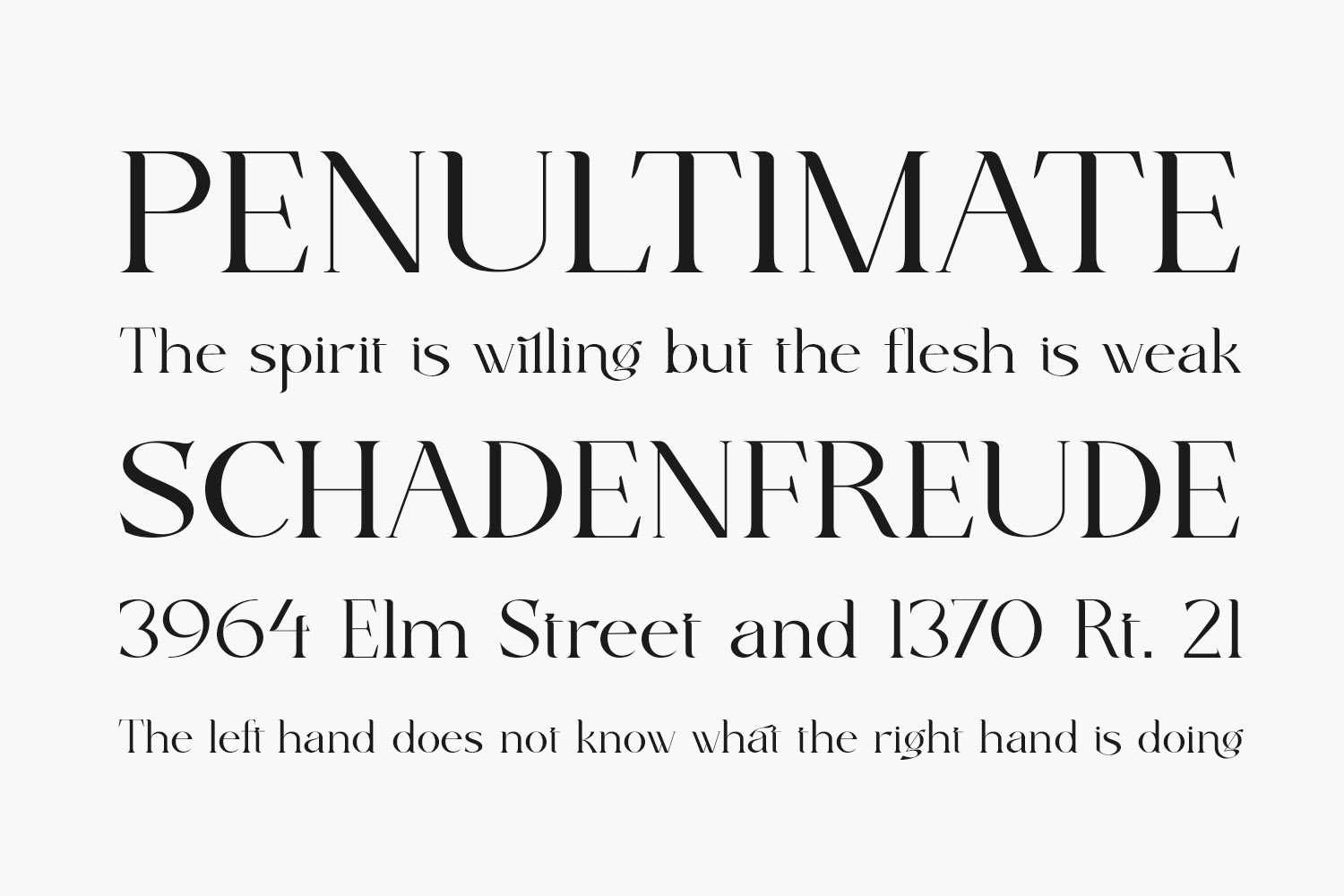
Arasik Free Font presents a slender and chic serif font option that exudes elegance. Arasik Free Font is free for personal use only. Please purchase the full version for commercial use.
Designed by BrandSemut